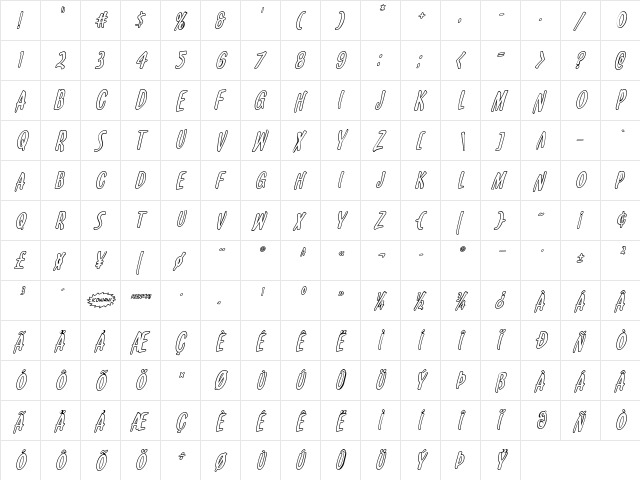
Kennebunkport Outline Italic Italic
Design Context for Kennebunkport Outline Italic Typeface
Kennebunkport Outline Italic is built around its visual character rather than neutral utility — its distinctive forms are designed to make an impression at display sizes. Its italic angle brings a sense of urgency and motion to the letterforms.
Font Pairing: Pair with a clean neutral sans-serif for body copy to let Kennebunkport Outline Italic's character lead without overwhelming the composition.
Pro Tip: Use Kennebunkport Outline Italic exclusively at display sizes — it was designed to be seen, not read at length. Let a neutral companion handle body copy.